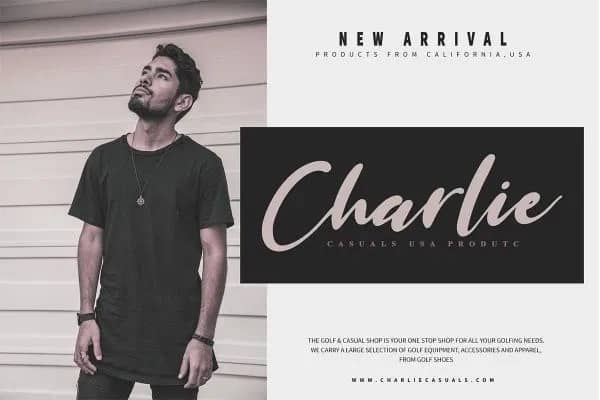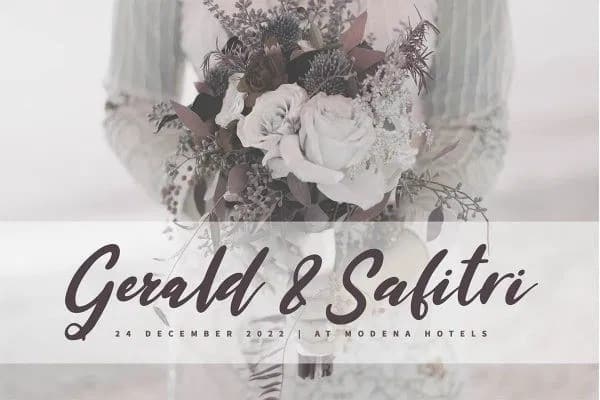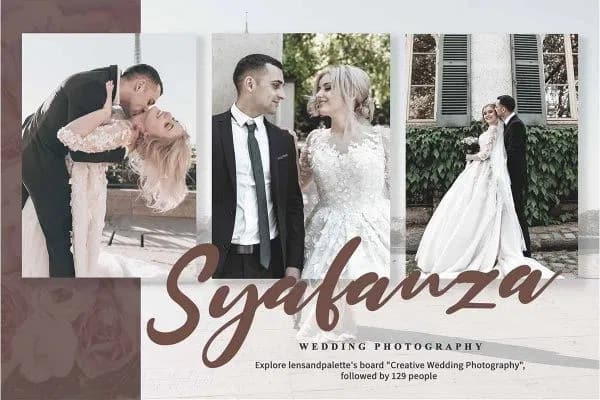
Introducing Mersella Script Font, with the natural stroke of hand quick. You can use and enjoy Twistko, for promotional material and anything. Made from font designer named Staircase Studio. And this font perfect for handwritten quotes, product packaging, fashion magazine, signature logo, photography, merchandise, branding projects, poster, social media post, book cover, flyers, and advertising. You can create easily and make it as if you wrote it yourself.